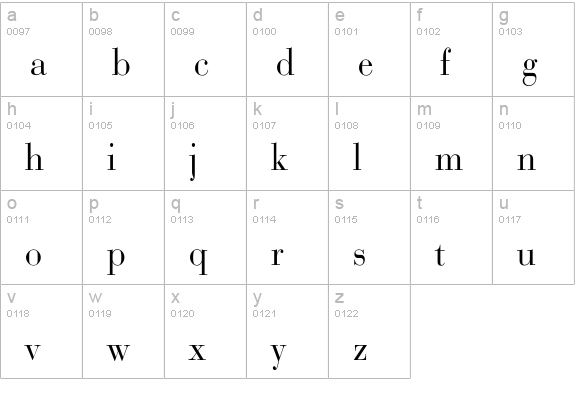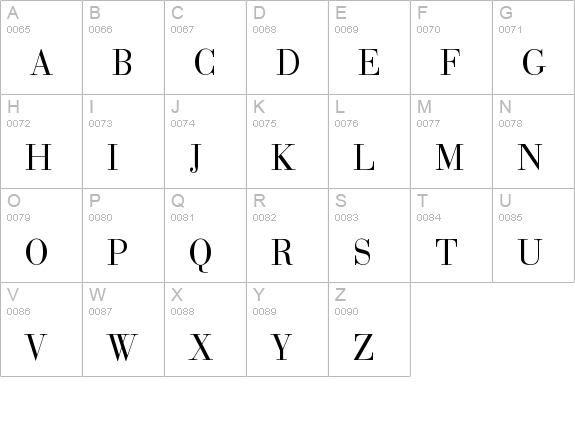
BodoniCnd-Norma Font Details
BodoniCnd-Norma is a classic and elegant serif font that exudes sophistication and style. With its clean lines and timeless design, this font is perfect for creating impressive and professional-looking documents, invitations, and branding materials. The combination of thick and thin strokes gives BodoniCnd-Norma a sense of balance and refinement, making it a popular choice for designers and typographers alike. What sets BodoniCnd-Norma apart is not just its beauty, but also the fact that it is available for free download at FontsMarket.com. This means that you can easily access this high-quality font and use it in your projects without any cost. Whether you're a seasoned designer or just starting out, BodoniCnd-Norma offers a versatile and sophisticated option that will elevate your work to the next level. Download it today and add a touch of elegance to your designs.